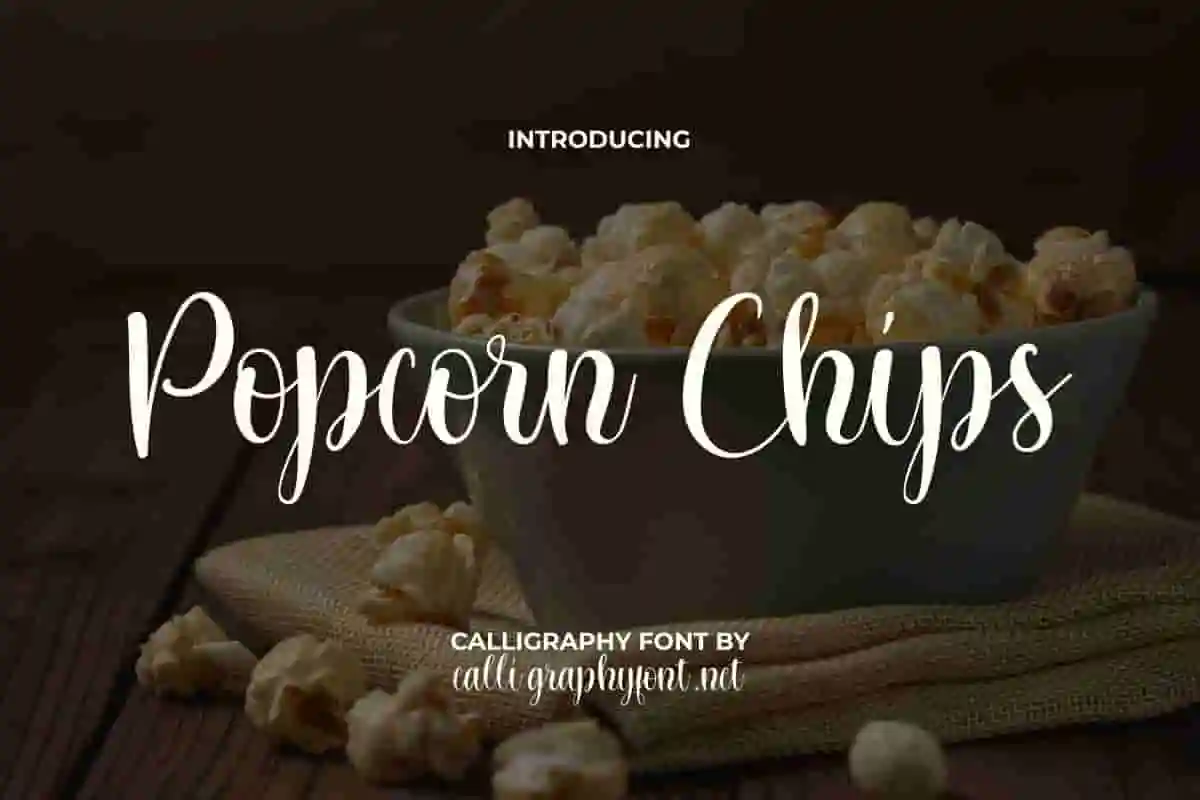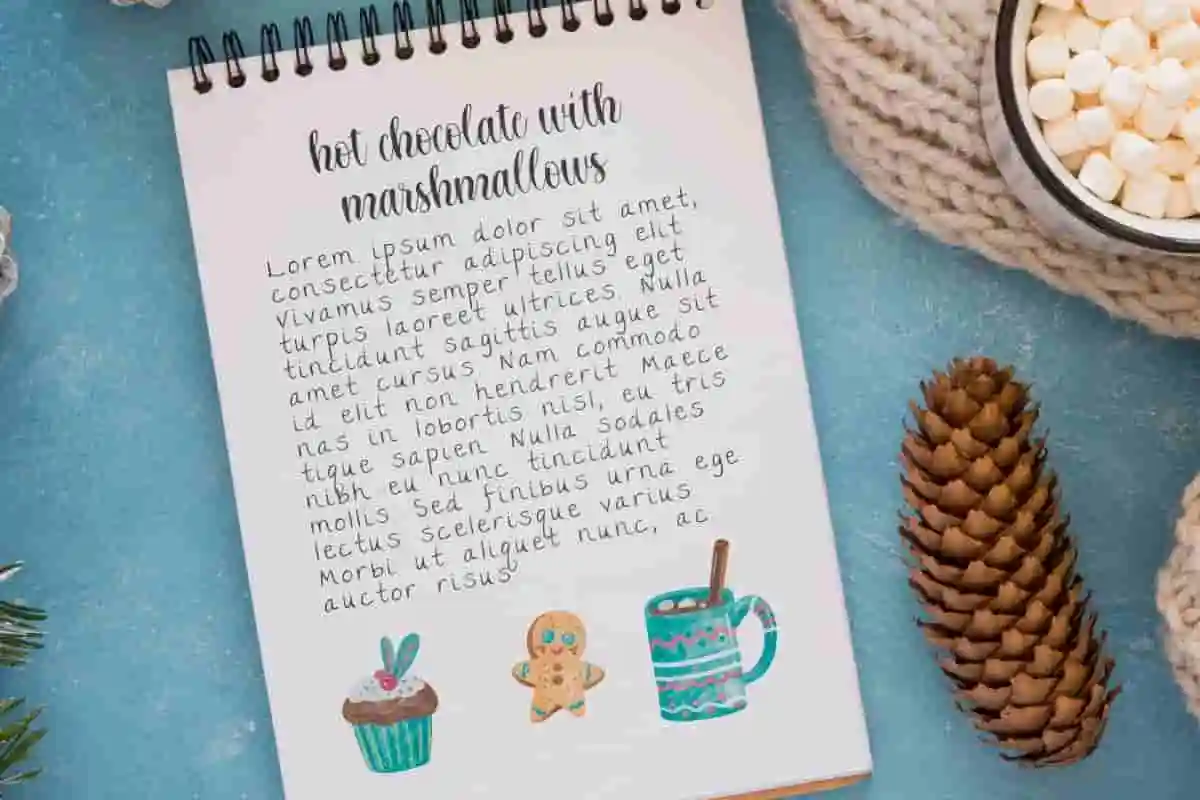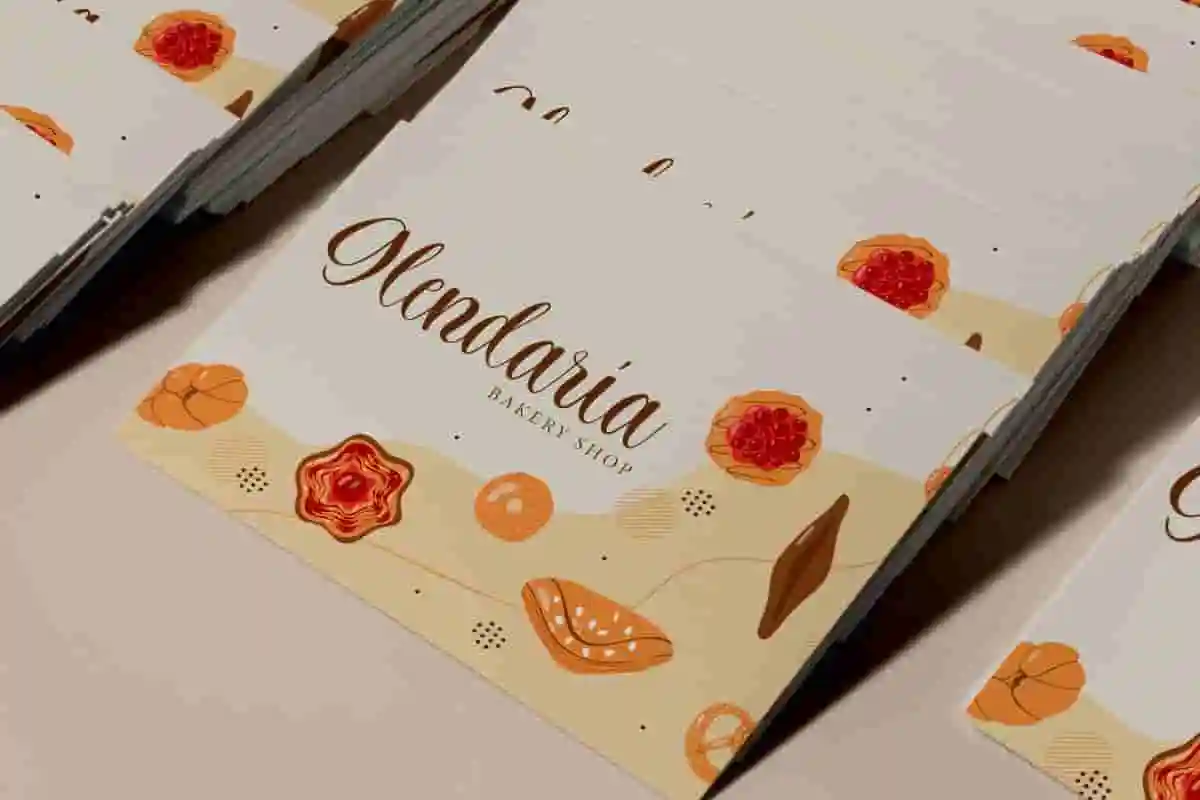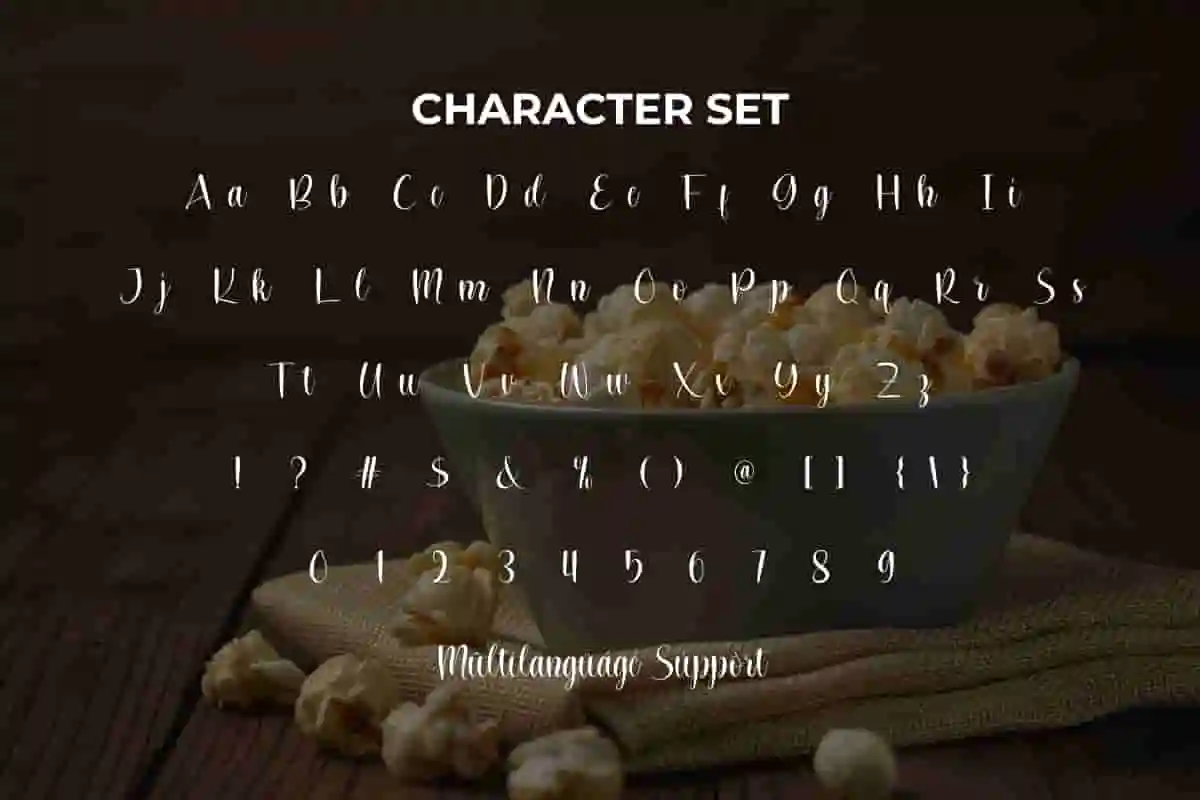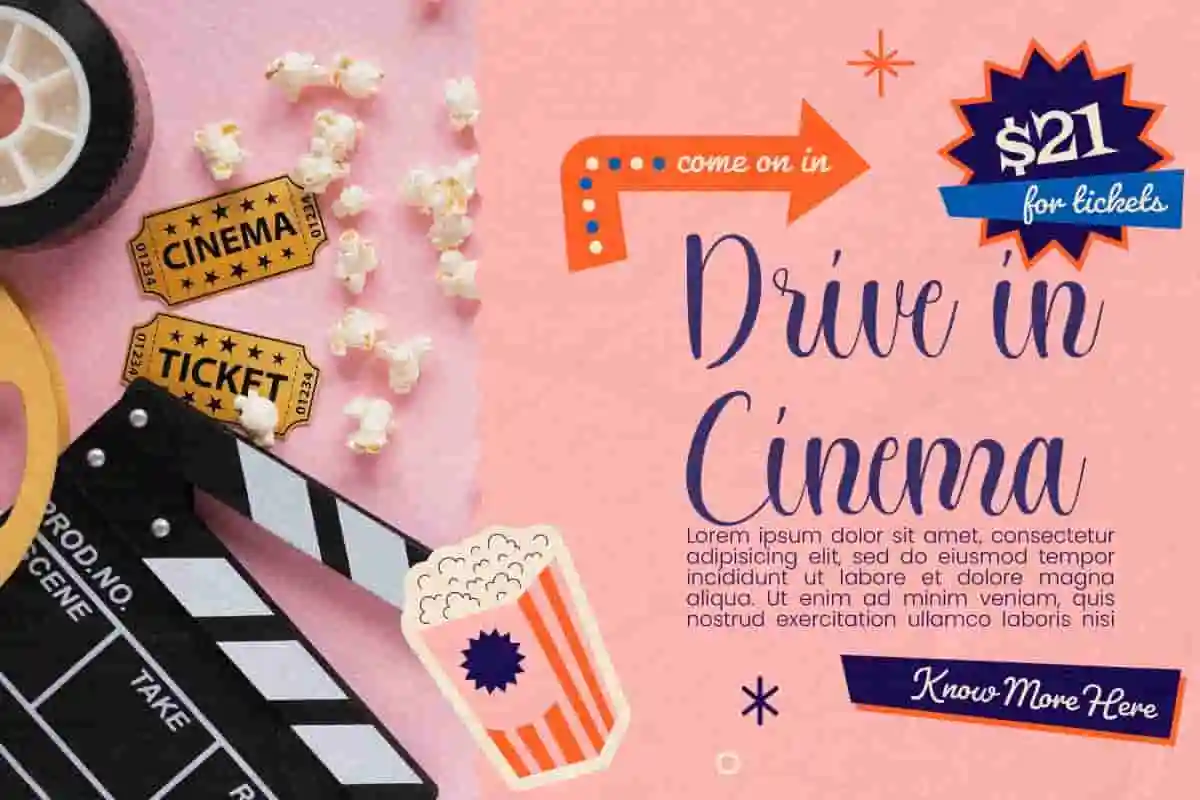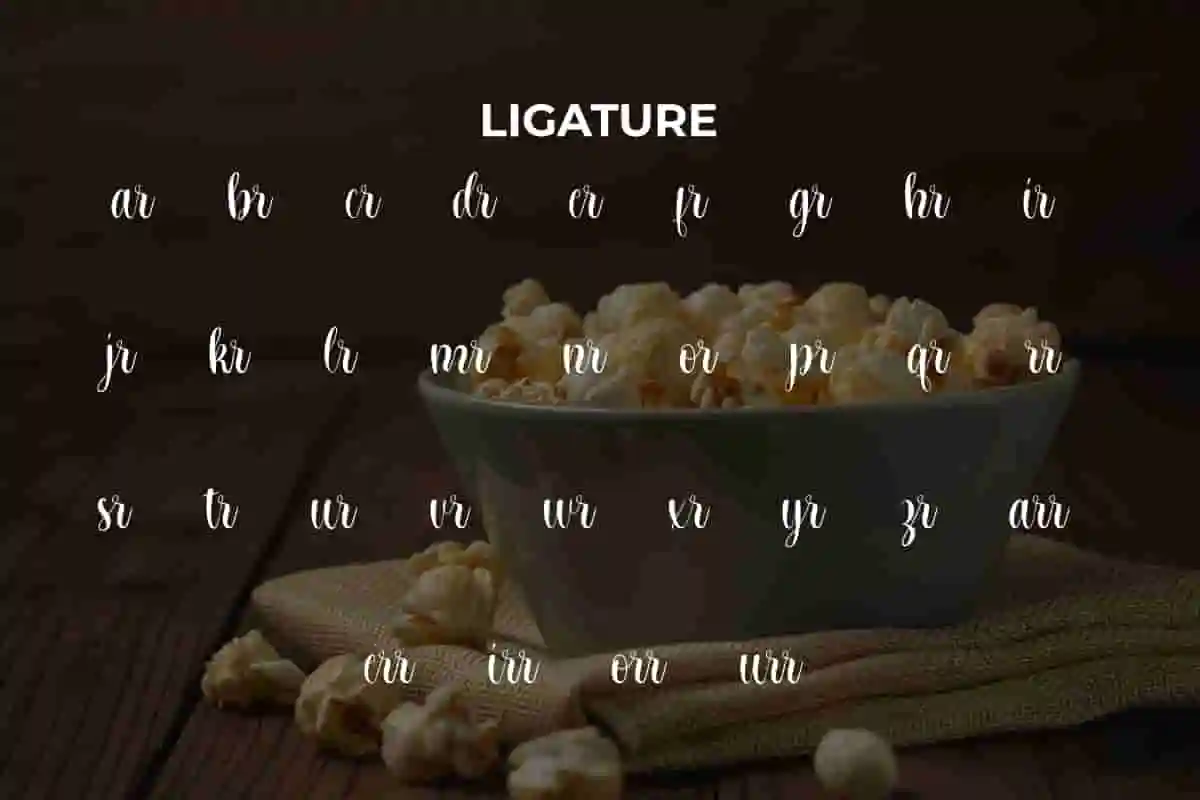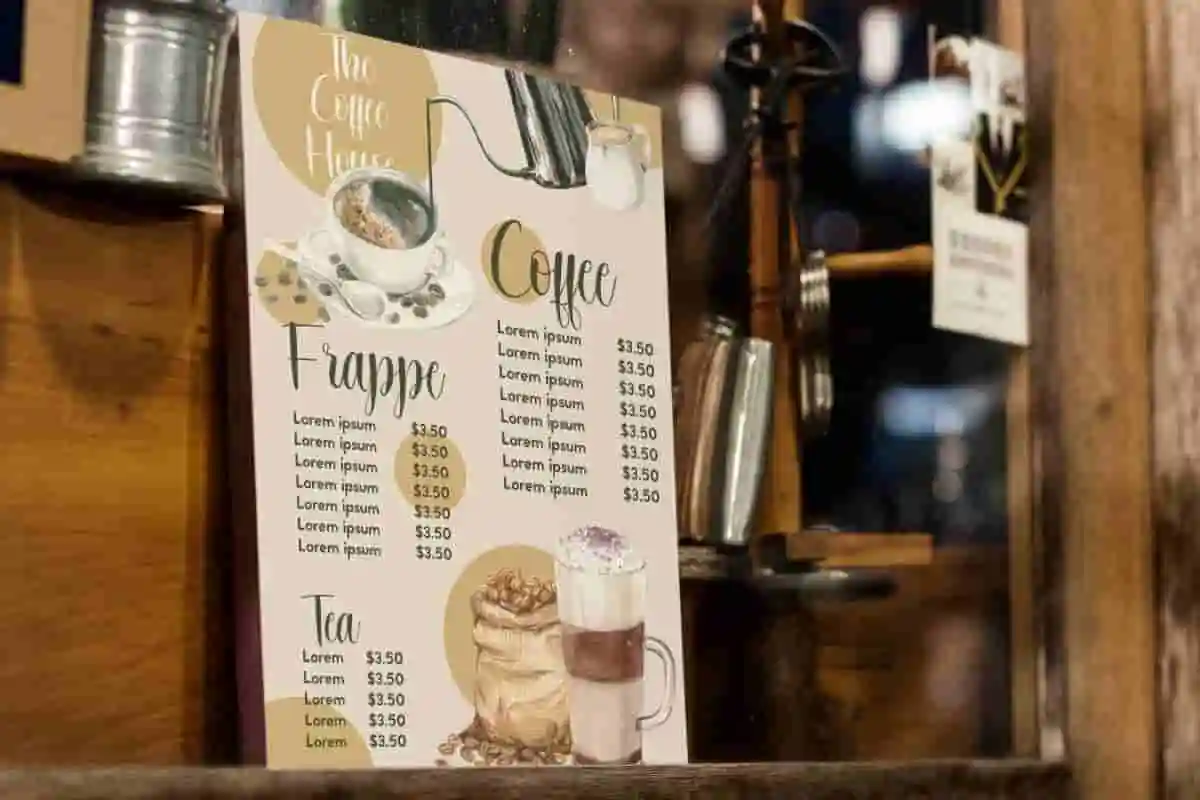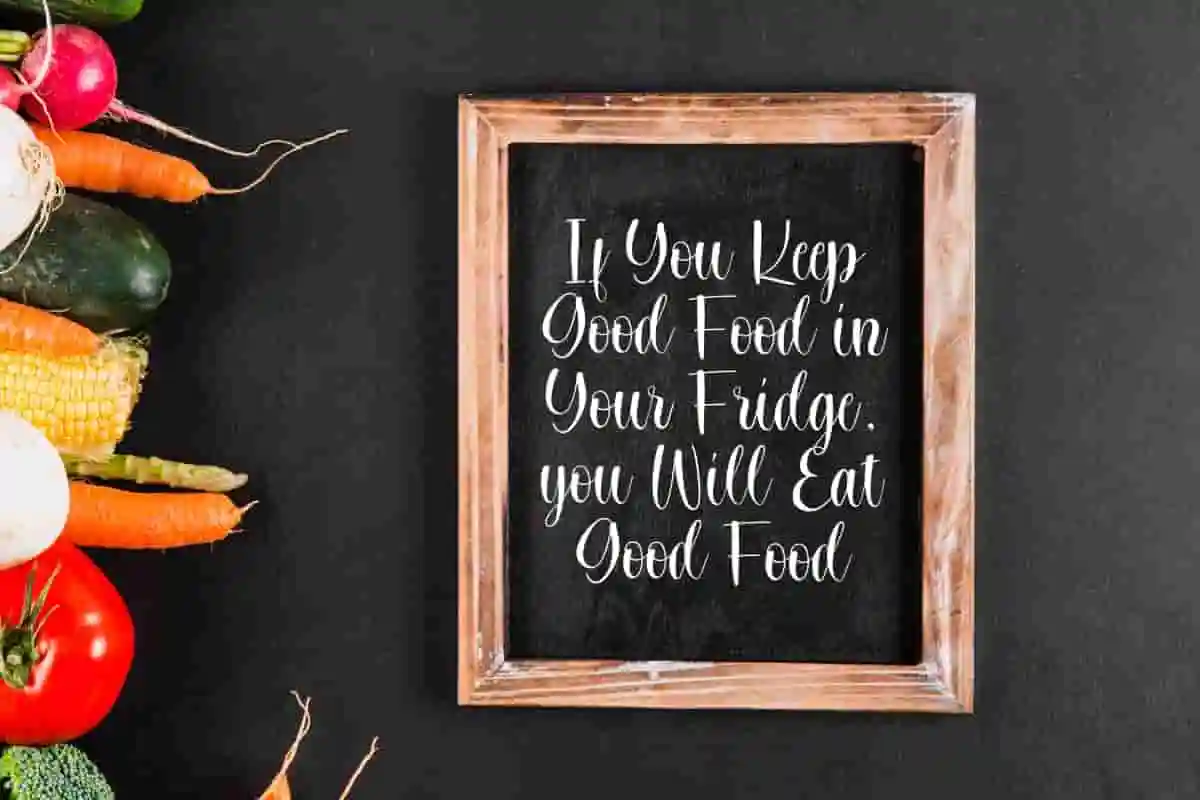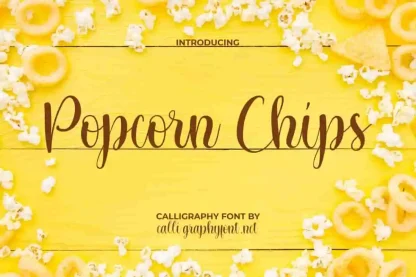
Popcorn Chips Font
Popcorn Chips Font is a beautiful handcrafted calligraphy font inspired by classic calligraphy. It’s perfect for advertisements, promotions and any design with classic style.
Popcorn Chips Font is a beautiful calligraphic script font inspired by classic calligraphy. This beautiful and natural handcrafted font evokes a minimalist and charming feel. Since it is made with a regular consistency it flows easily to add an organic touch to your designs. Ideal for ads board, brochure, card, header, invitation, logos, menu, poster, quote, title, watermark and much more.
Are you searching for the perfect font that adds energy, creativity, and a touch of playfulness to your design? Look no further than Popcorn Chips Calligraphy Font – a bold and decorative display typeface crafted to make your projects stand out with style. Whether you are designing branding, packaging, posters, or social media graphics, this font is the ultimate choice to capture attention and leave a lasting impression.
Why choose Popcorn Chips Calligraphy Font? Because it brings creativity, energy, and personality into your work. It’s perfect for designers, business owners, content creators, and anyone looking to give their visuals a unique and memorable identity.
Make your designs impossible to ignore with Popcorn Chips Calligraphy Font. Elevate your brand, boost your creativity, and let your ideas shine with this fun and bold typeface.
Popcorn Chips Calligraphy Font will be able to bring a distinctive appeal. Each of its elegant character shapes will easily elevate the quality of any project, whether for use in print or digital content. It will evoke a sense of creative individuality. The authentic touch that flows smoothly across themes and is versatile will enrich the existing charm. This font is great for bakery, cafeteria, event organizer, graphic design, handicraft, movie, etc.
Popcorn Chips Calligraphy Font comes with a complete set of Uppercase and Lowercase Basic Characters, Number, a large range of Punctuation, Symbol and Ligature. It is supported with multilingual characters and ready to use both on Windows machine or Mac with simple installations. It’s tested to work well in the Adobe Apps (Illustrator, Adobe InDesign, Adobe Photoshop) CorelDraw, and others. PUA Encode Characters means you can access all the characters easily – Fully accessible without additional design software.